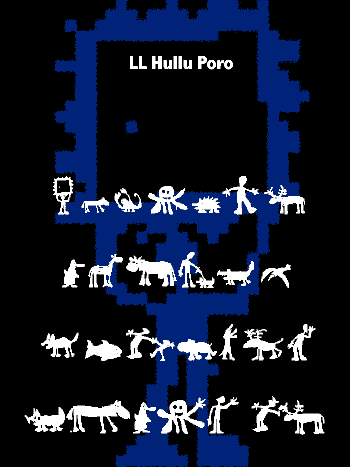
LL Hullu Poro (finnish = crazy rendeer) Developed on Fuse 95 typo conference This was the attempt to translate a language unknown to me so far, which is mainly juggling with imagery in the same way. |